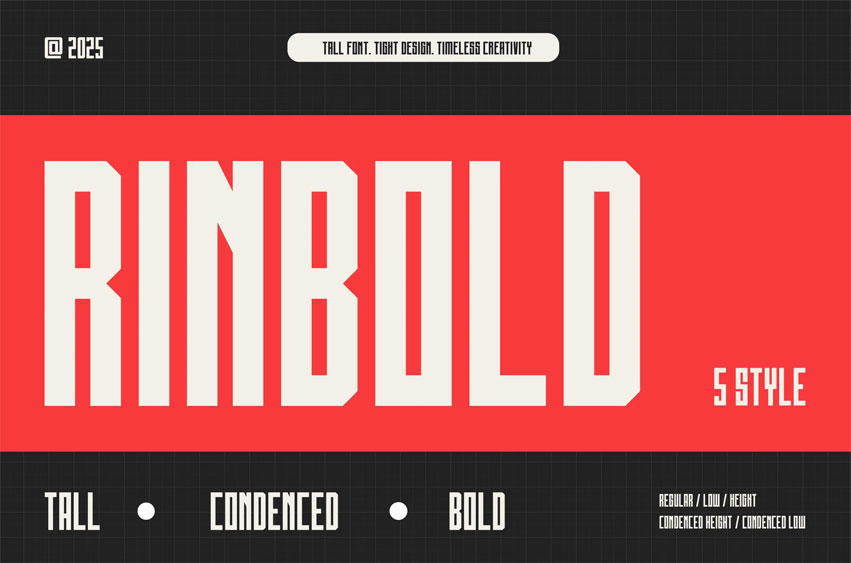
Rinbold Family Font is a bold, uppercase display font with tall, condensed letterforms designed to command attention. Its strong vertical presence and clean lines make it perfect for impactful titles, modern branding, posters, and editorial layouts. Rinbold blends authority with refined style, offering a striking choice for standout design.